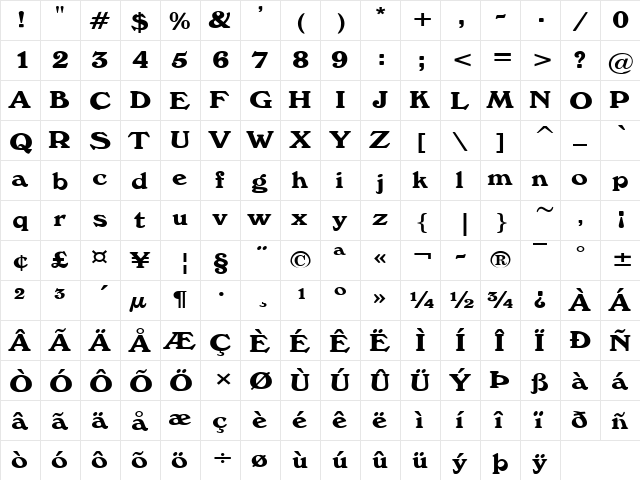
Windz Regular
Windz Regular Font Preview
Windz Regular
Design Context for Windz Typeface
Windz is a composed and adaptable typeface that performs quietly and consistently across a wide range of design contexts.
Pro Tip: Pair Windz with a font of contrasting weight or personality to build a more expressive typographic hierarchy.